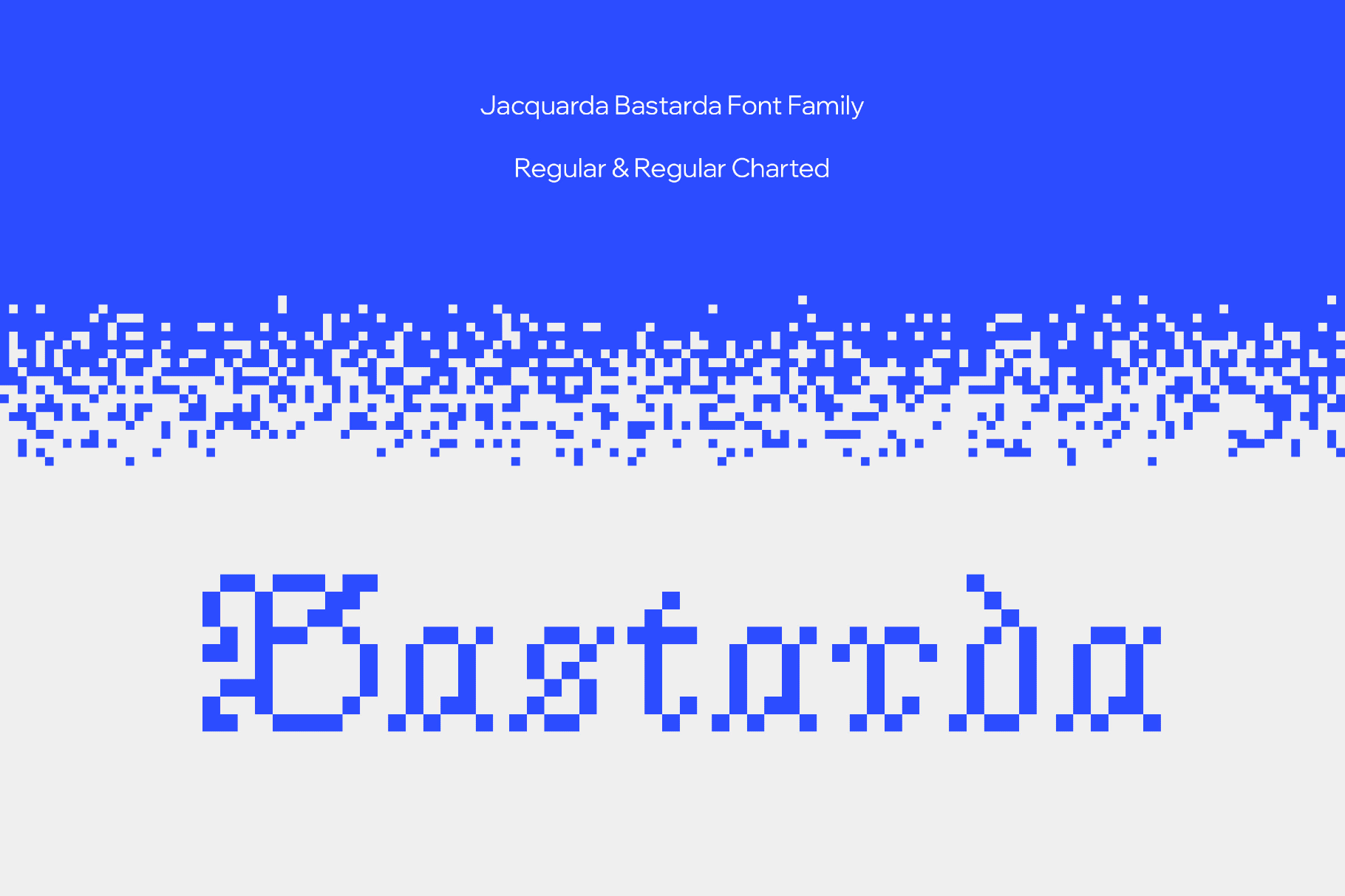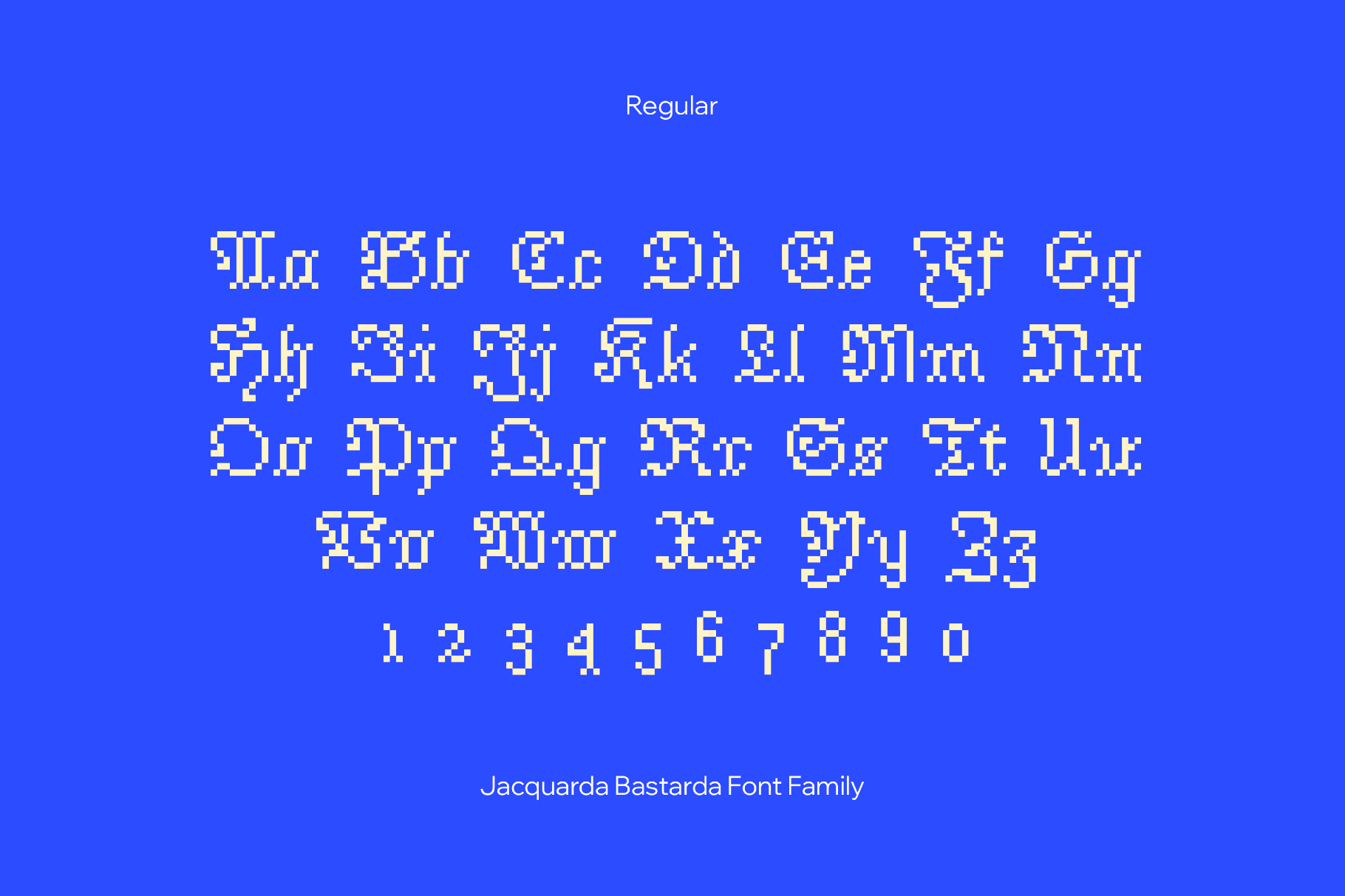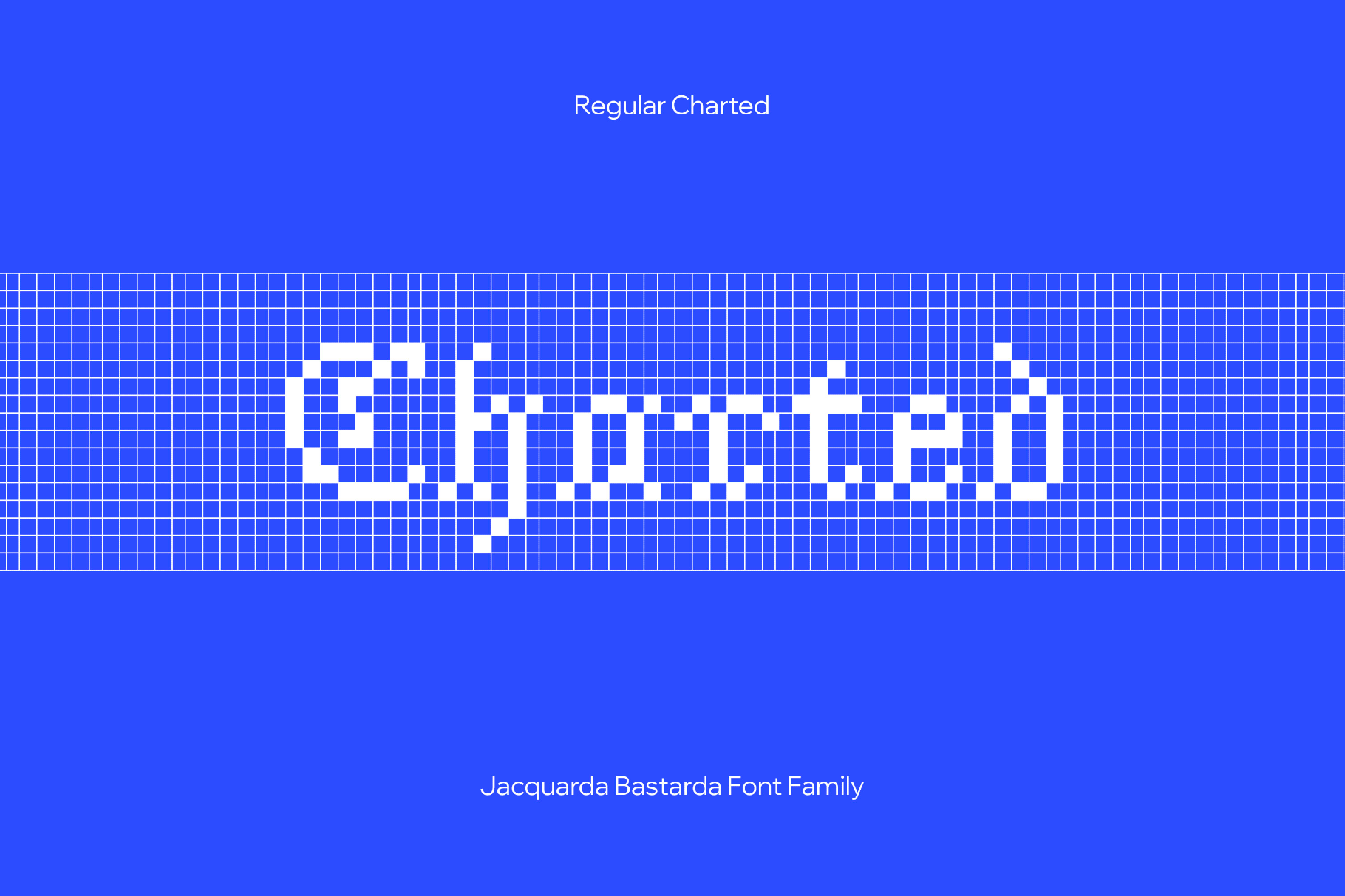
Jacquarda Bastarda Font Family
Jacquarda Bastarda translates Victorian needlepoint into a bitmap in the Bastarda style. It reads like a gothic headline drawn in sharp broken stitches: stepped curves, dense texture, and a legible skeleton.
The font is ideal for sweater yokes, scarf repeats, beanie bands, blanket monograms, cushion covers, tote and pouch jacquards, varsity-style knit patches, cross-stitch and needlepoint samplers, and bead-loom patterns. It also suits titles for pattern books, fiber arts magazines, retro game interfaces, posters, and social templates.
- Two styles: Regular and Charted.
- Uppercase and lowercase letters, numbers, punctuation, and symbols.
- Multilingual support with international characters across extended Latin-based languages.